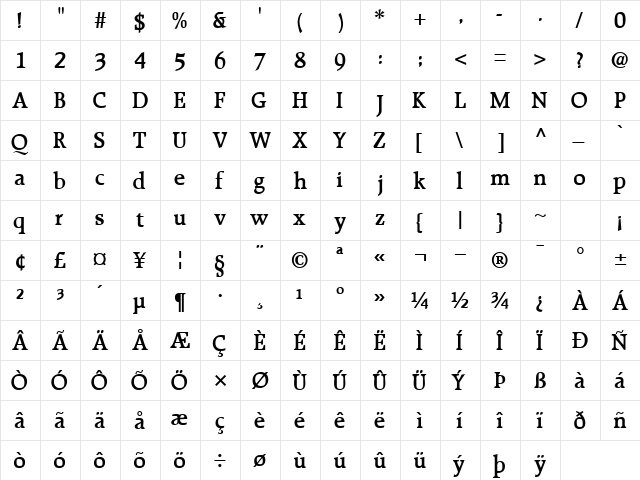
RecognitaBookSSK SemiBold Font Preview
RecognitaBookSSK SemiBold
Design Context for RecognitaBookSSK Typeface
RecognitaBookSSK offers clean, dependable letterforms without strong stylistic allegiance, making it a practical choice for designers who need flexibility. Its bold stroke weight gives it real presence on the page.